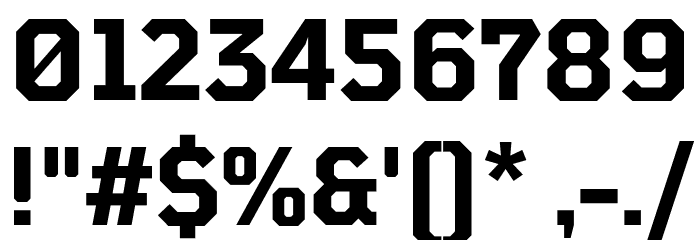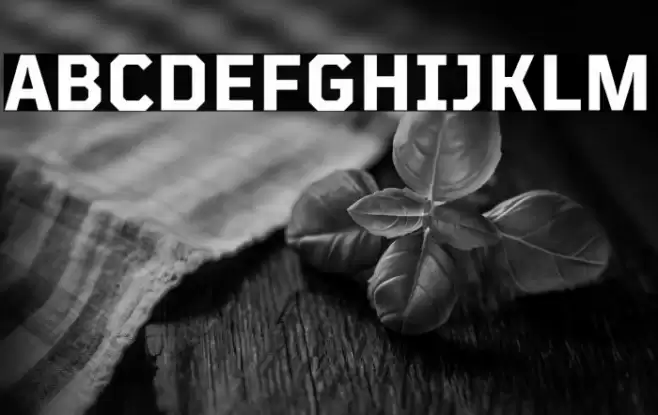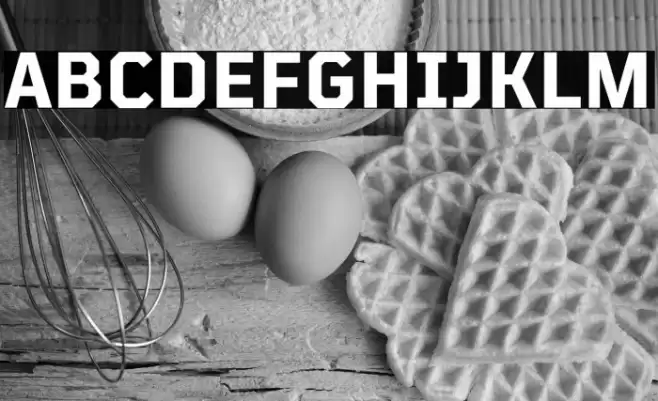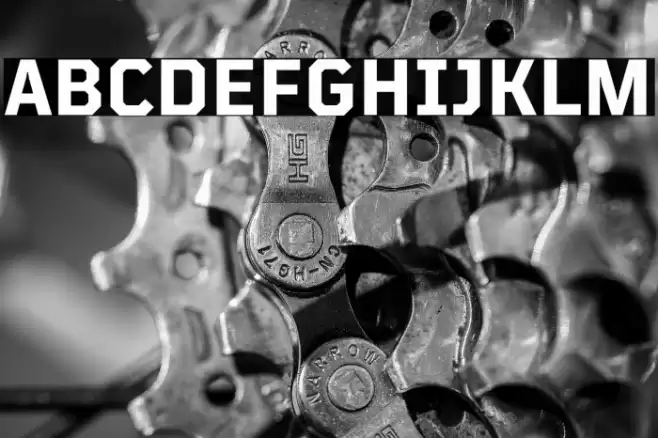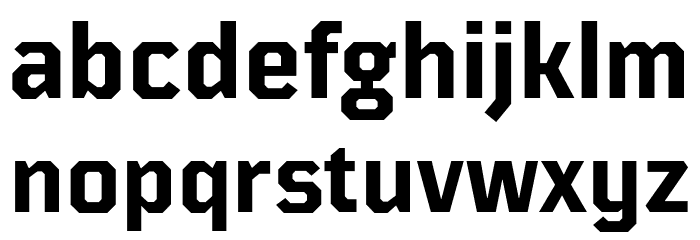
TT Mussels Trl Bold Font
TT Mussels Trl Bold Description
This font features a bold, geometric design with strong, angular lines and a modern aesthetic. The characters are constructed with a uniform thickness, giving them a robust and impactful appearance. The uppercase and lowercase letters maintain a consistent style, with sharp edges and a slightly condensed form. The numerals and special characters follow the same design principles, ensuring a cohesive look across all elements. This font's boldness and clarity make it suitable for attention-grabbing headlines and display purposes.
A bold, geometric font with angular lines and a modern look from Uncategorized fonts.
• Proposed Projects: Ideal for branding, posters, headlines, and any project requiring a strong visual impact.
• Width: Condensed
• Contrast: Low
• Overall Style: Modern
• Use Case: Headlines, Logos